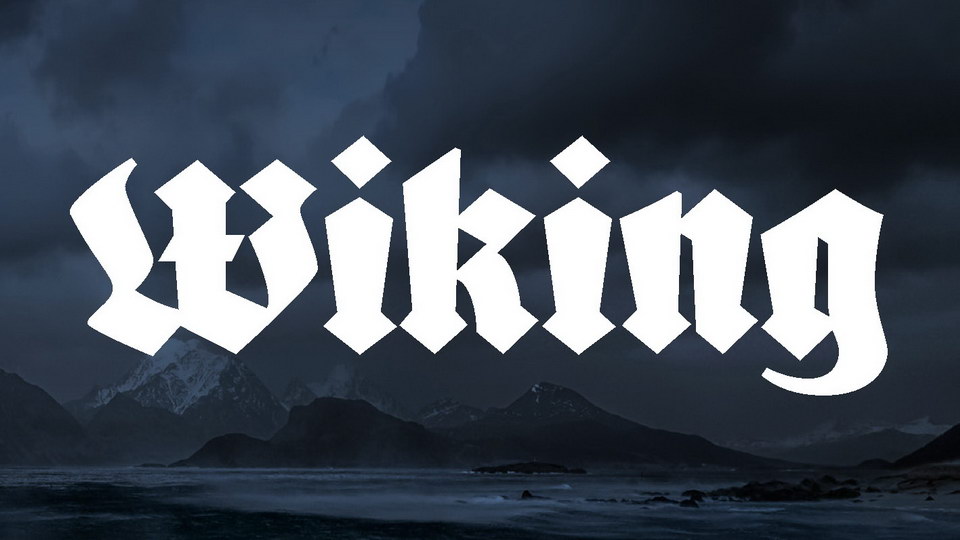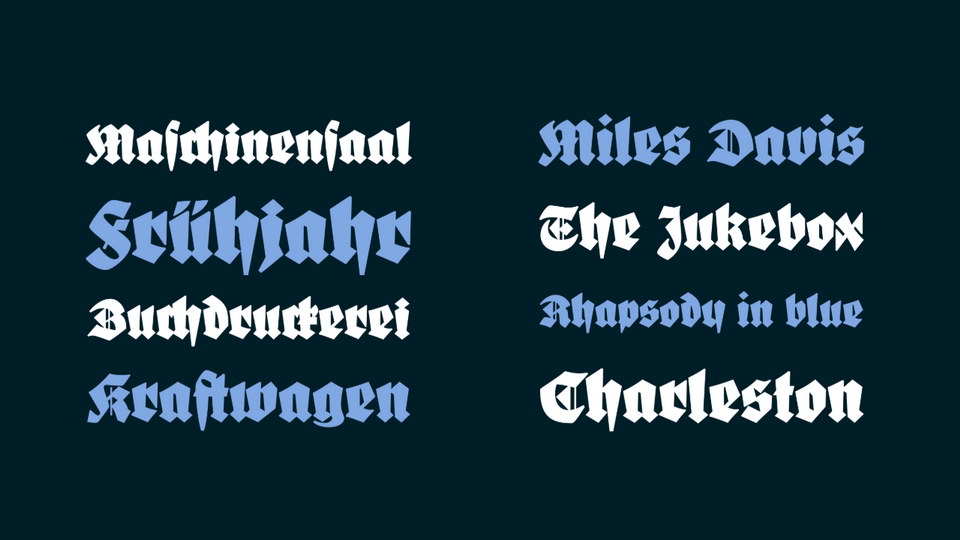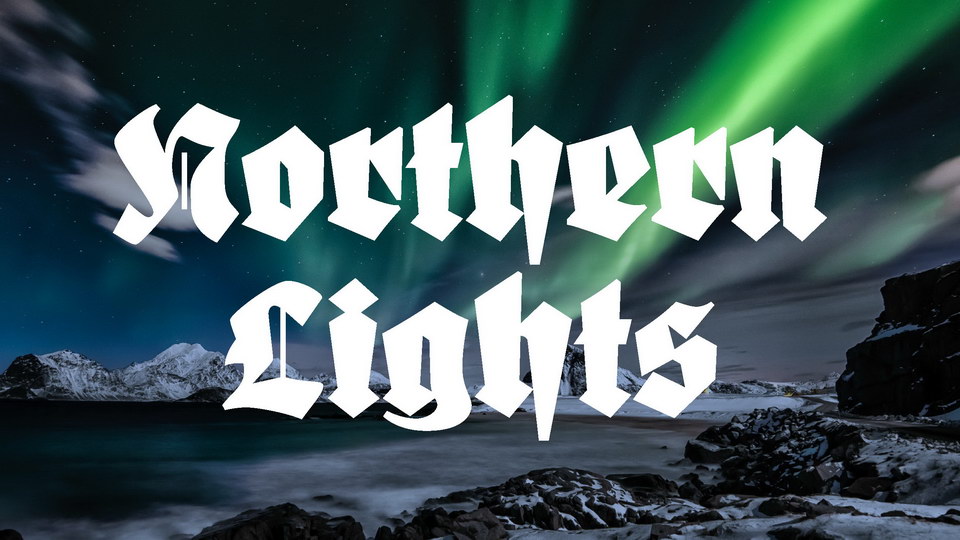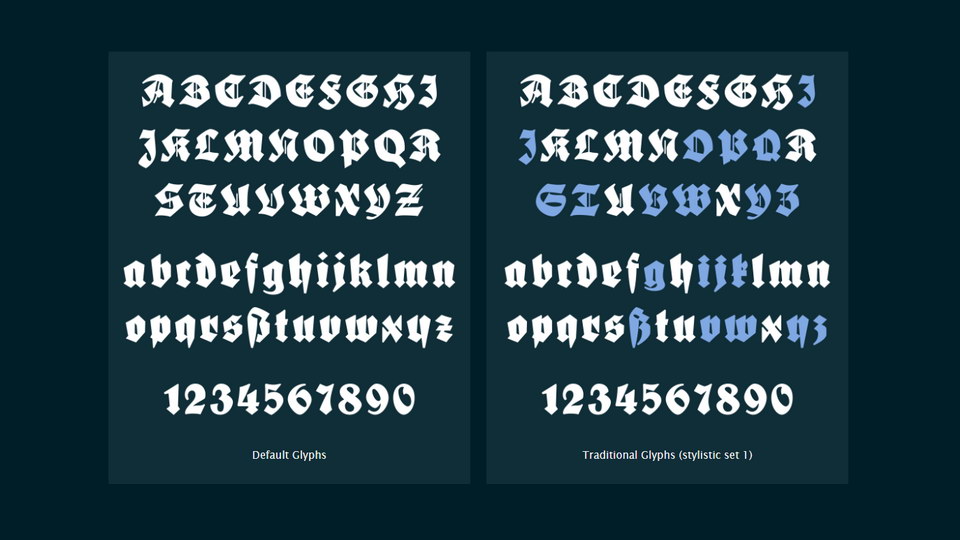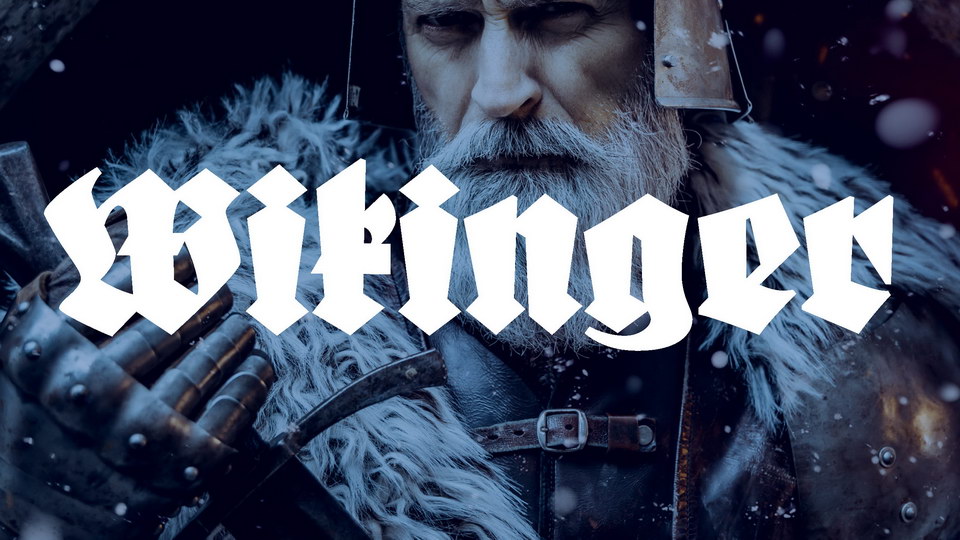
FDI Wiking is a blackletter font, carefully crafted revival of Wiking typeface by Heinz König, originally released in 1925 at the type foundry J. D. Trennert & Sohn in Hamburg.
FDI Wiking has around 400 glyphs covering Western, Eastern and Central European Latin. Many characters have alternative glyphs, so both traditional German blackletter typesetting and international use with improved legibility is possible.